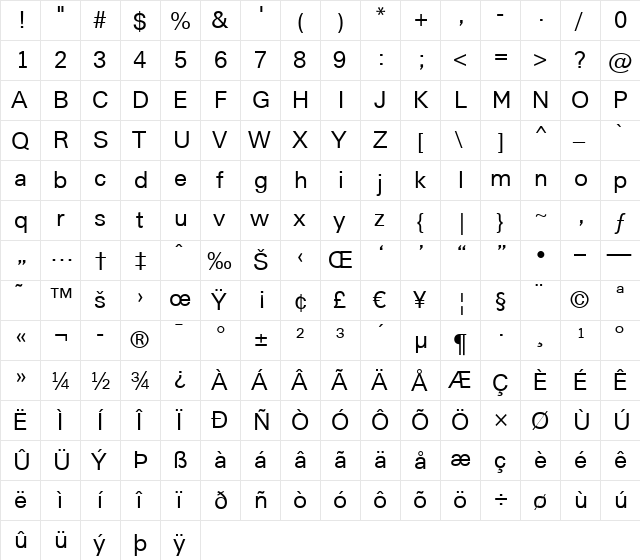
a_ReportSans Regular
Design Context for a_ReportSans Typeface
a_ReportSans takes a measured approach to typography — its balanced proportions and neutral character make it a reliable workhorse for both digital and print work.